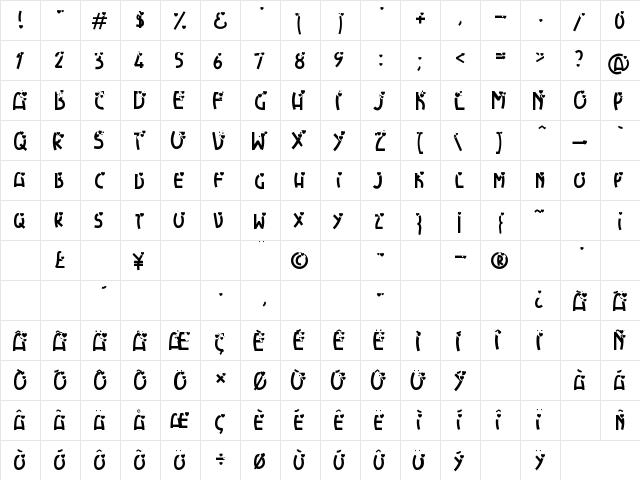
HeartExplosion Regular Font Preview
HeartExplosion Regular
Design Context for HeartExplosion Typeface
HeartExplosion is a composed and adaptable typeface that performs quietly and consistently across a wide range of design contexts.